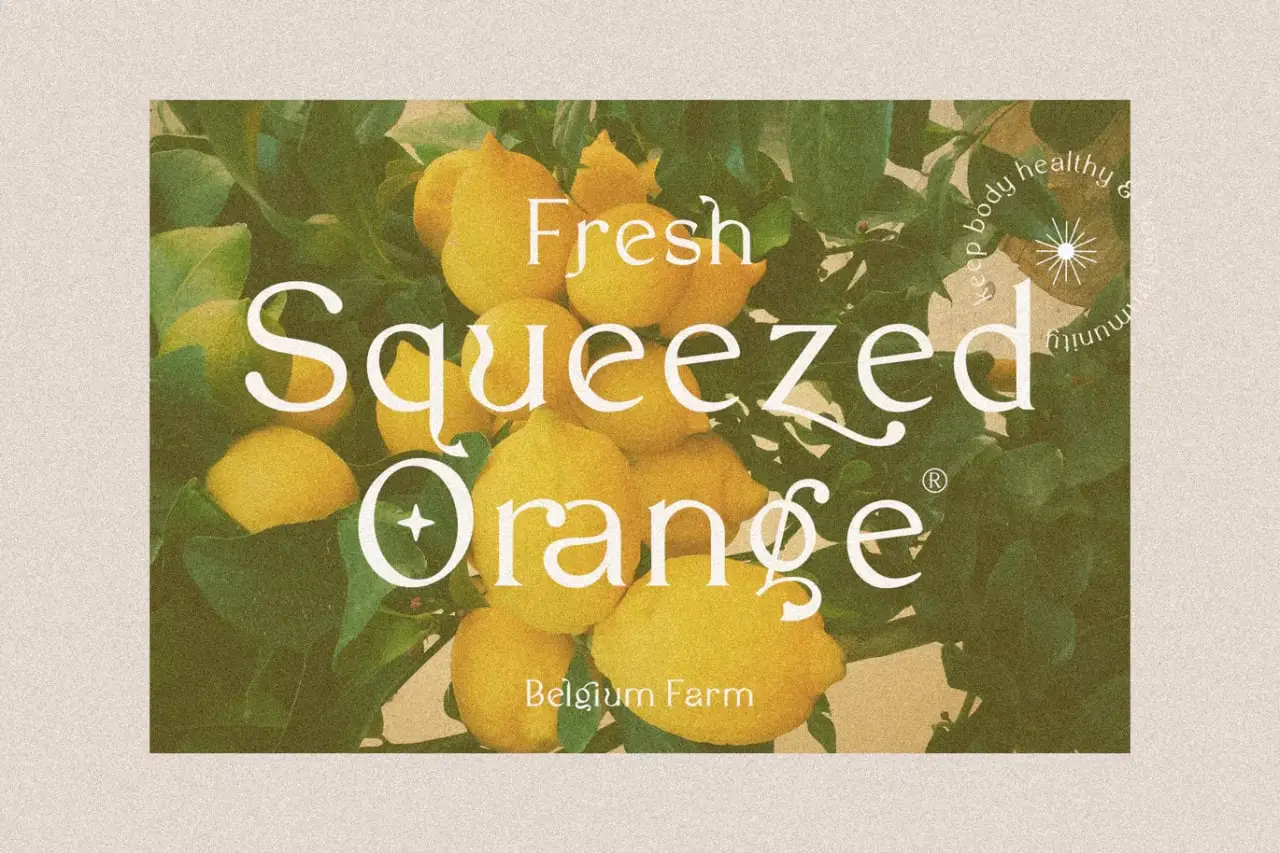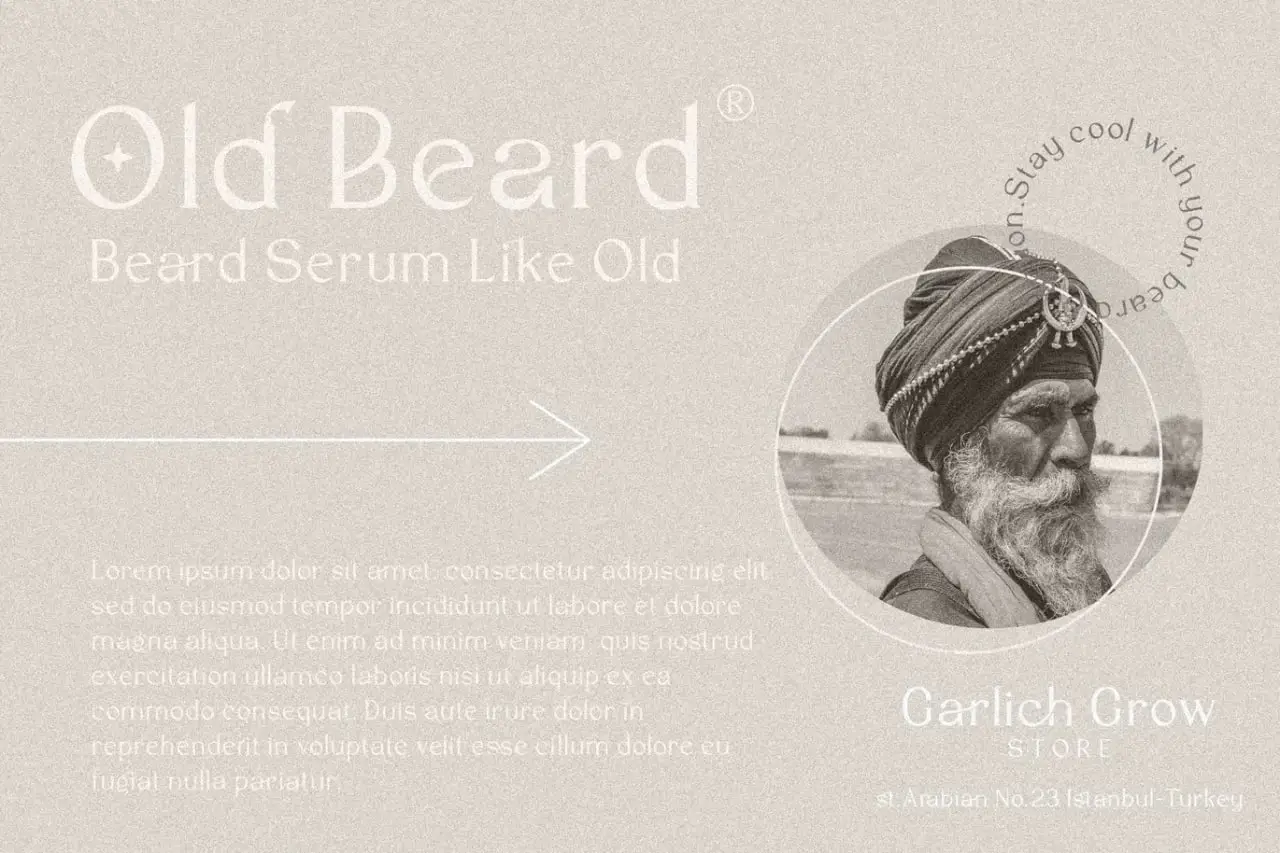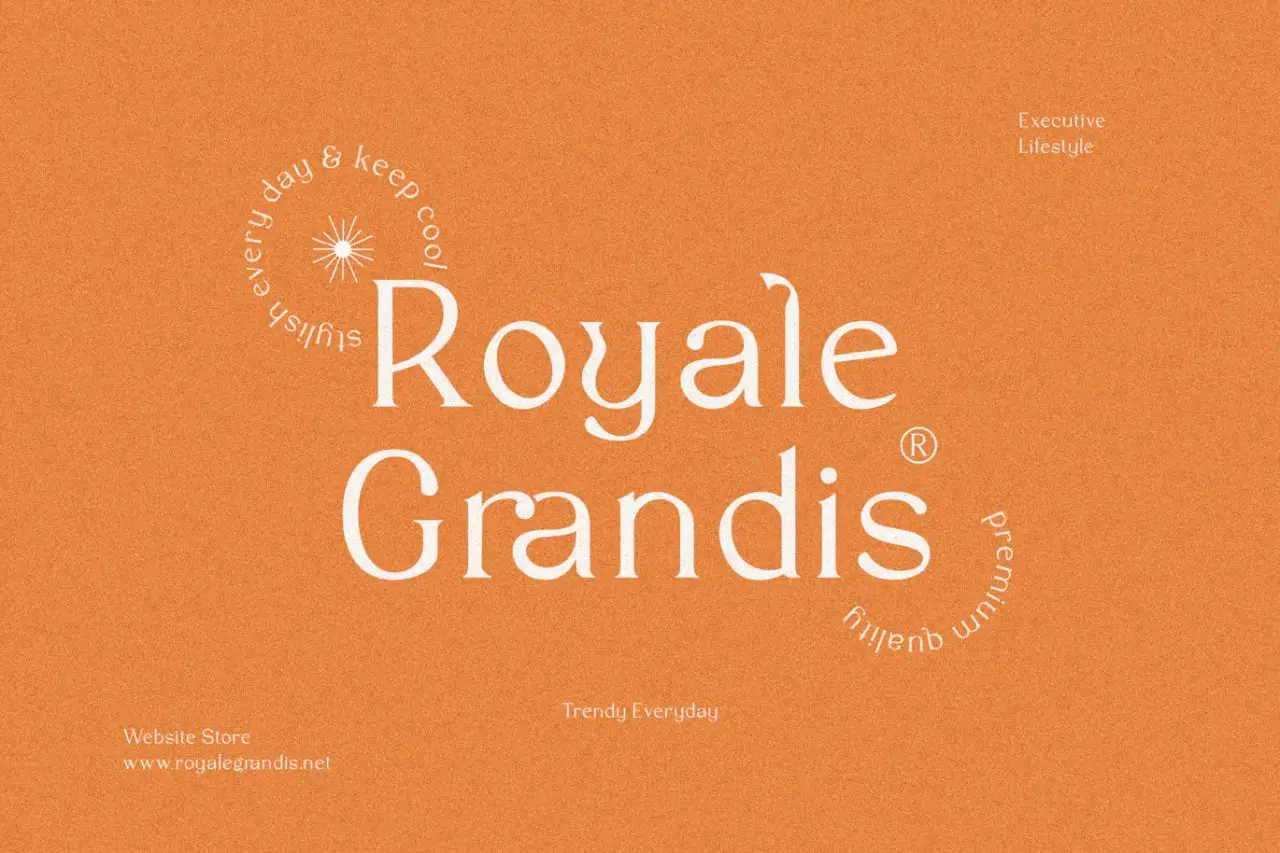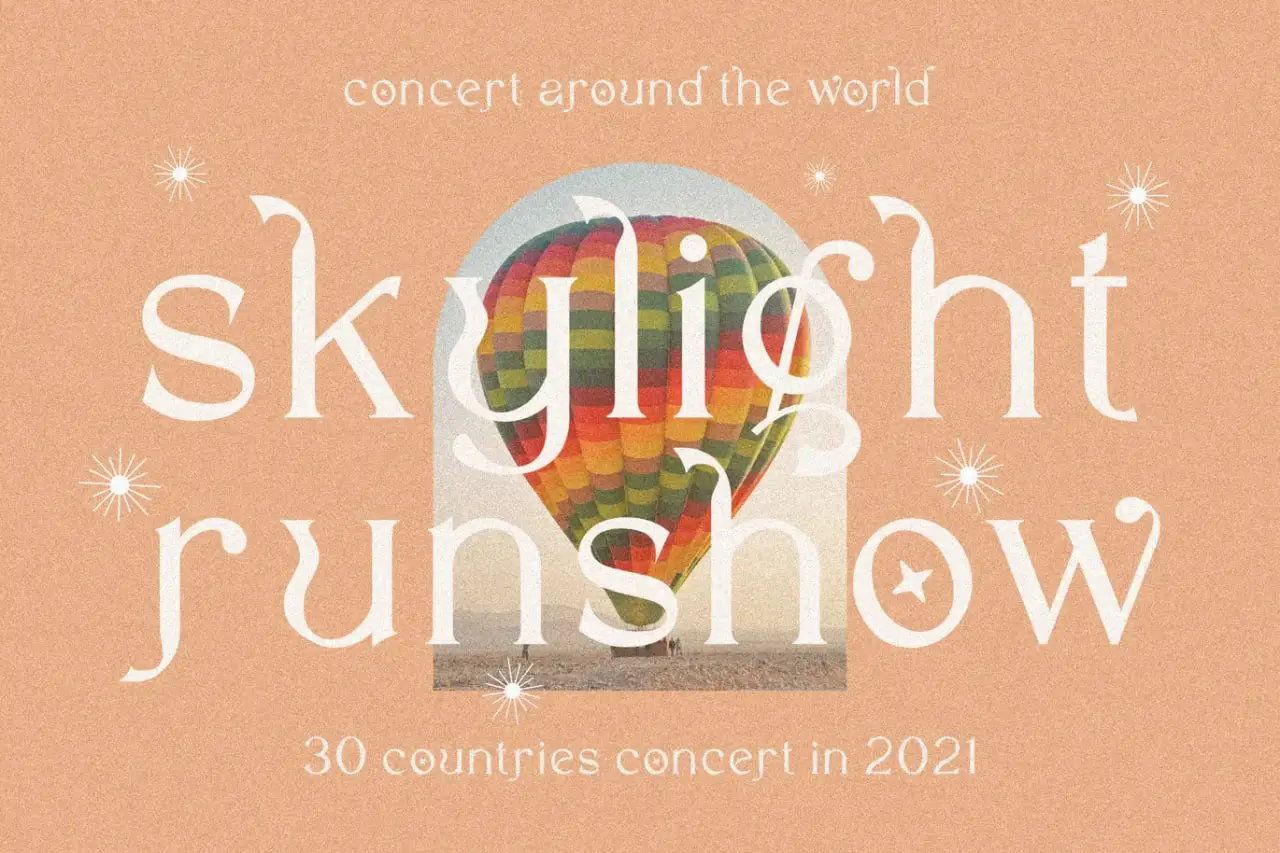
Viaction Type.Co-Garlich Grow Font
The Viaction Type.Co-Garlich Grow Font is a versatile typeface designed to elevate your creative projects. With its unique character and modern aesthetic, this font is perfect for a variety of applications.
• Stylish uppercase and lowercase letters
• Numerous special characters and glyphs
• Clean lines and contemporary design
• Ideal for branding, logos, and marketing materials